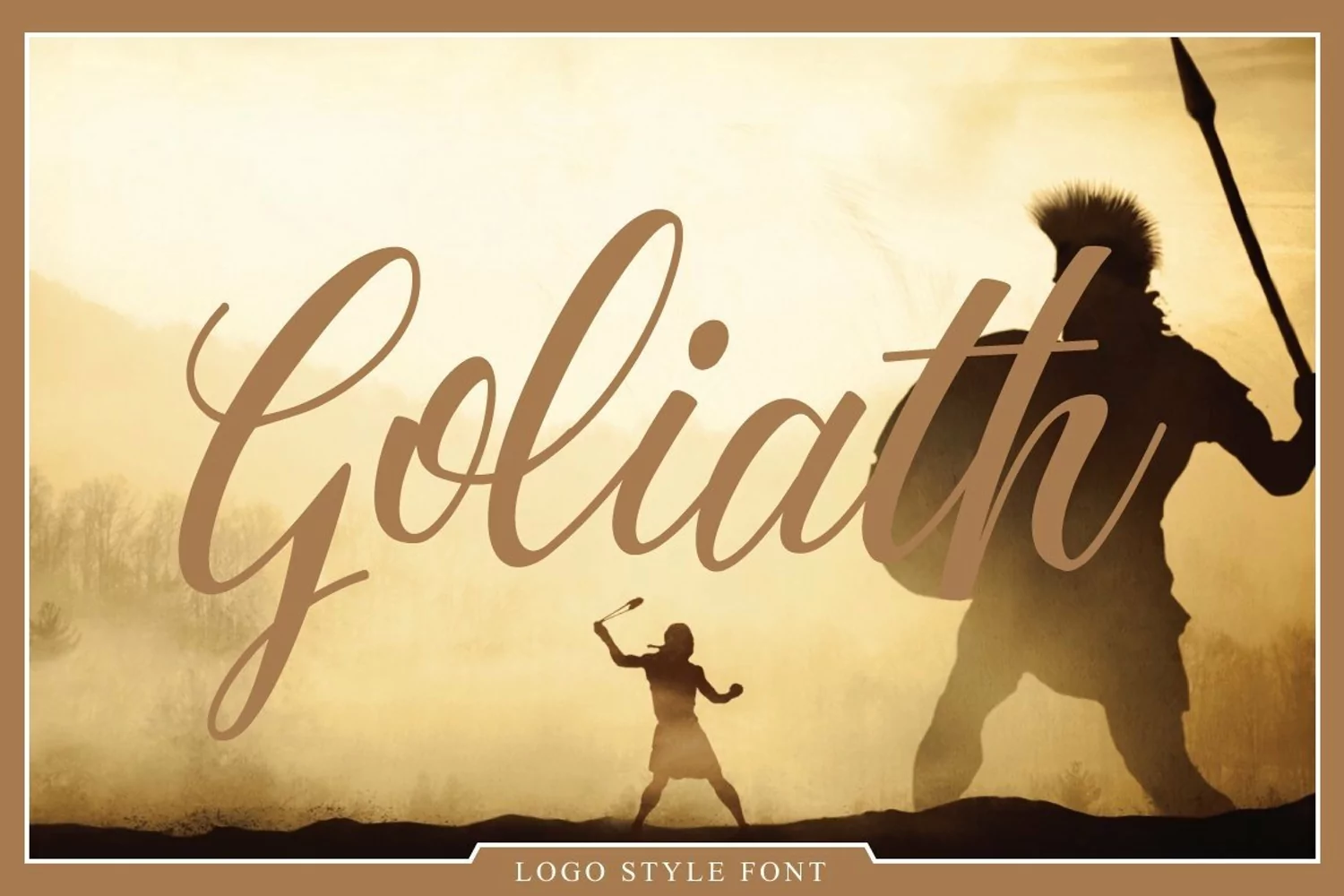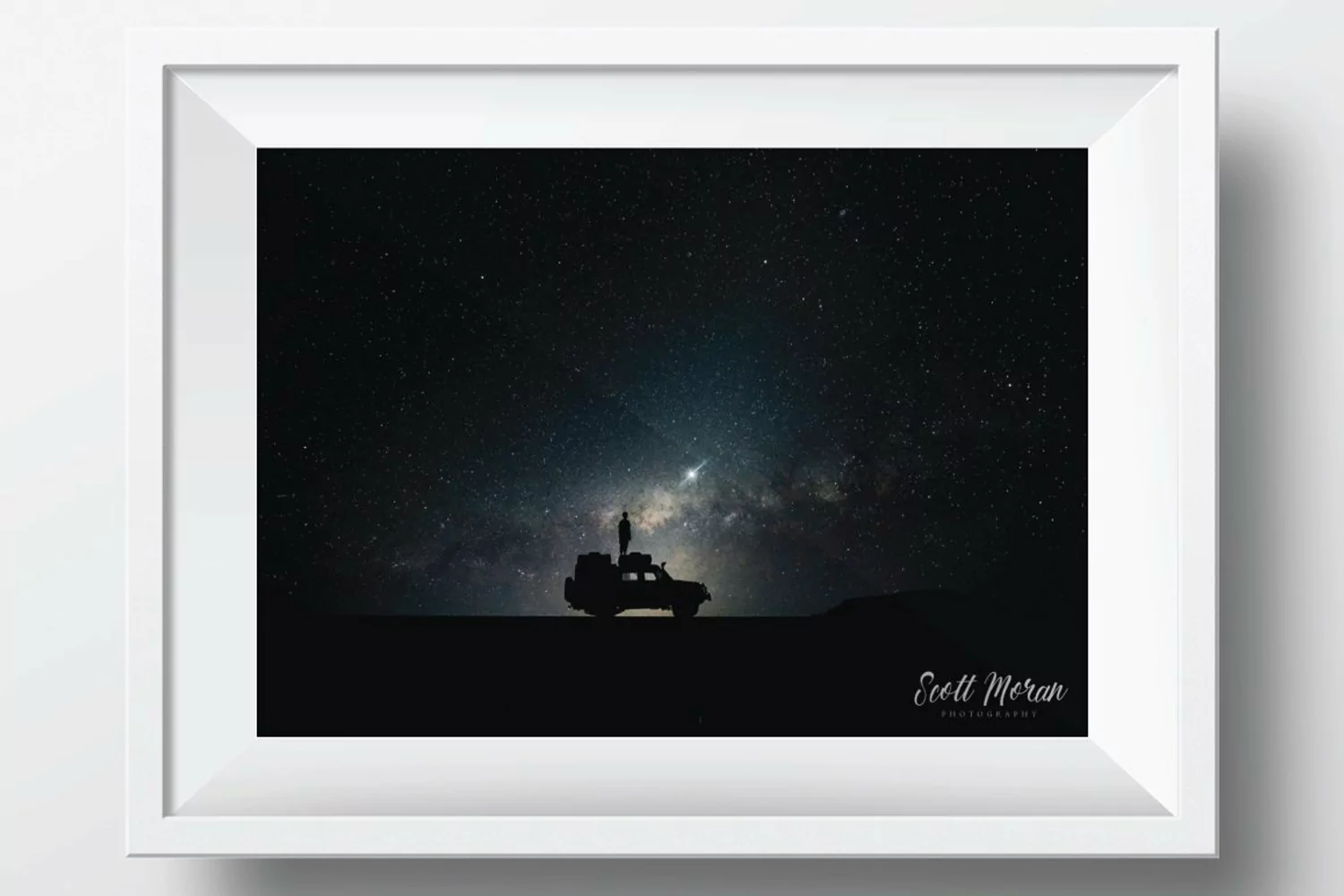
Presenting Goliath Typeface, a logo style script font which is perception and wisely designed to create your text looks outstanding. A dynamic script style typeface will craft a well-ordered appearance for many different projects such as quotes, blog header, poster, wedding, branding, logo, fashion, apparel, letter, invitation, stationery, etc.